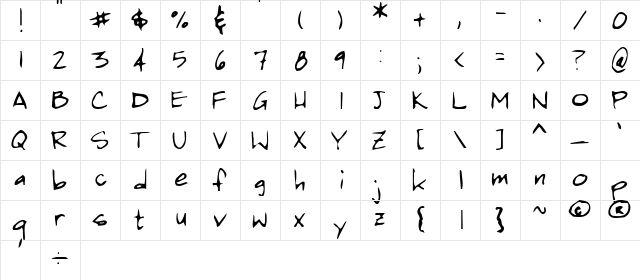
PenPalOne8 Regular
Design Context for PenPalOne8 Typeface
PenPalOne8 takes a measured approach to typography — its balanced proportions and neutral character make it a reliable workhorse for both digital and print work.